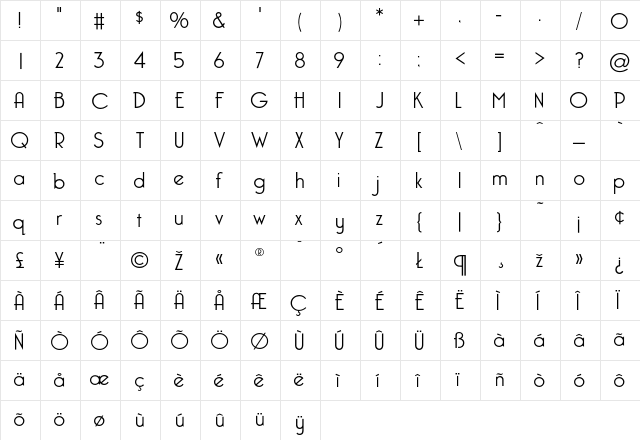
CaponeLight Light
Design Context for CaponeLight Typeface
CaponeLight offers clean, dependable letterforms without strong stylistic allegiance, making it a practical choice for designers who need flexibility. Its slender proportions lend an understated elegance to any composition.
Pro Tip: Use CaponeLight in both headline and body roles to test its range before committing to a single application.